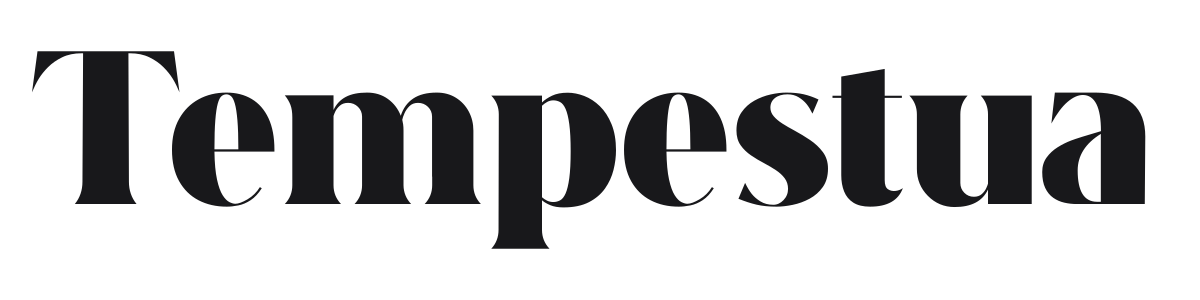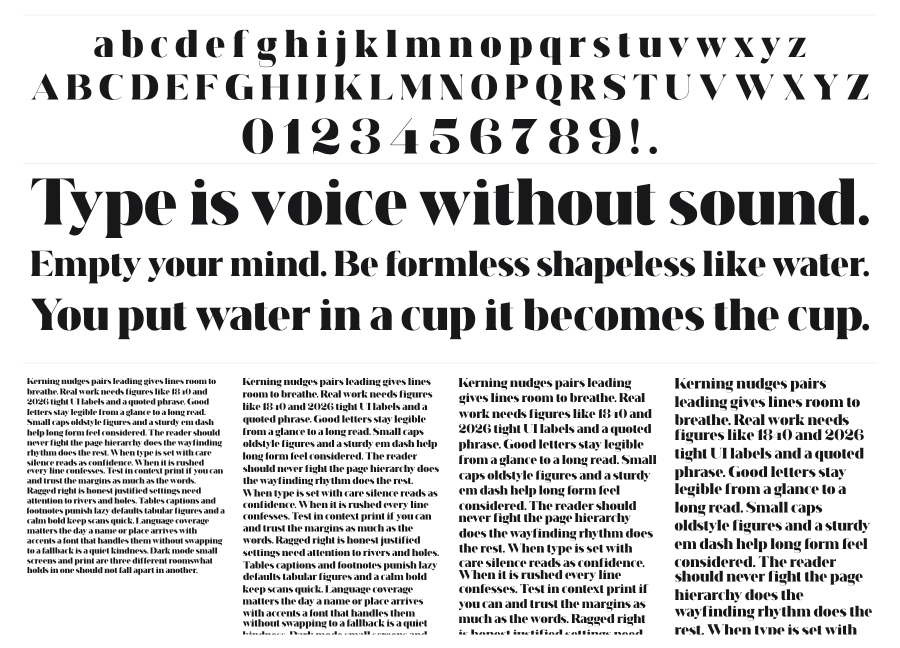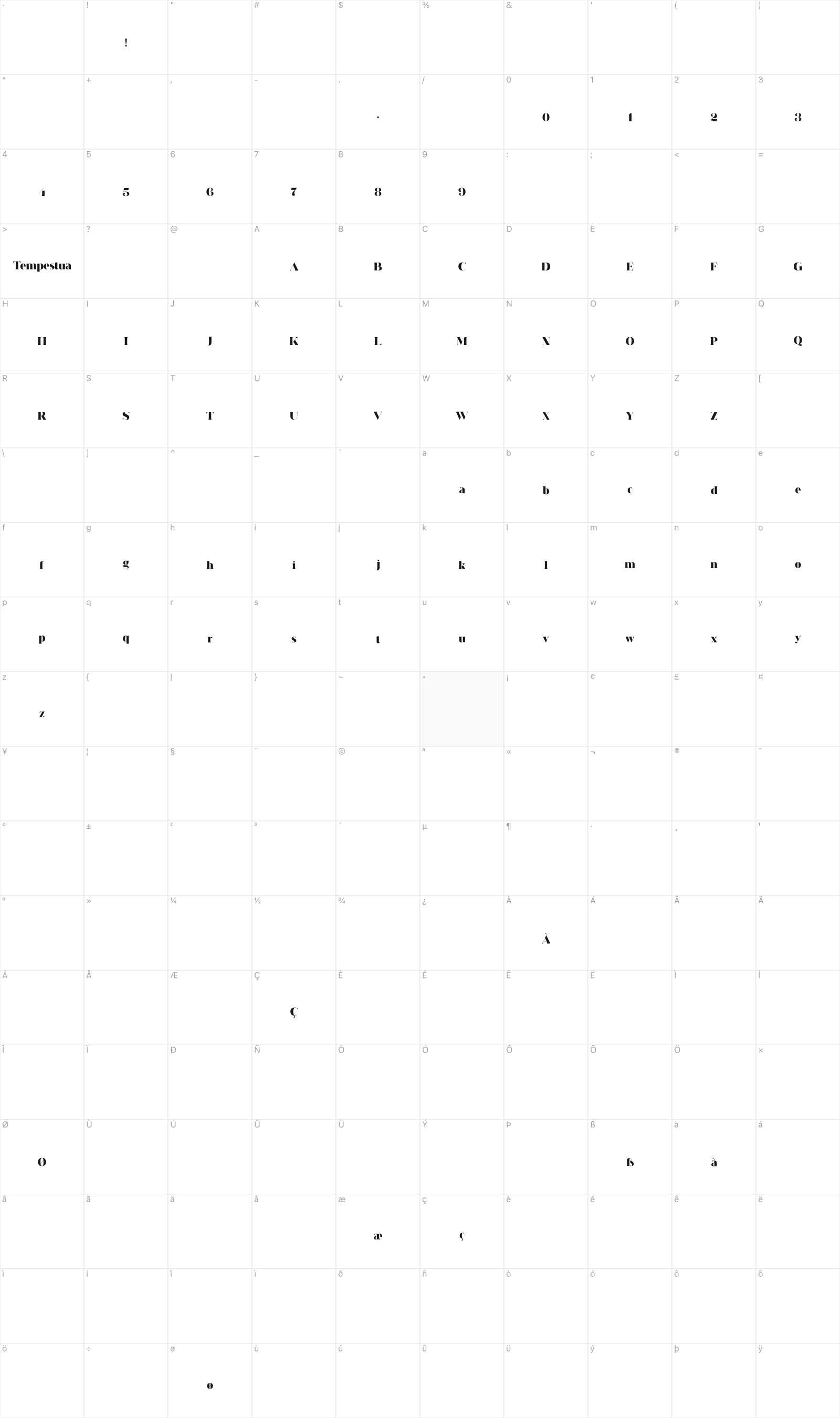
Tempestua
Tempestua is a high-contrast Didone display serif with dramatic thick stems and near-invisible hairline serifs. Select lowercase characters feature shaved serifs and flattened tops that push the design beyond classical revival into contemporary fashion territory. A strong choice for luxury brand identities, magazine mastheads, and editorial headlines.